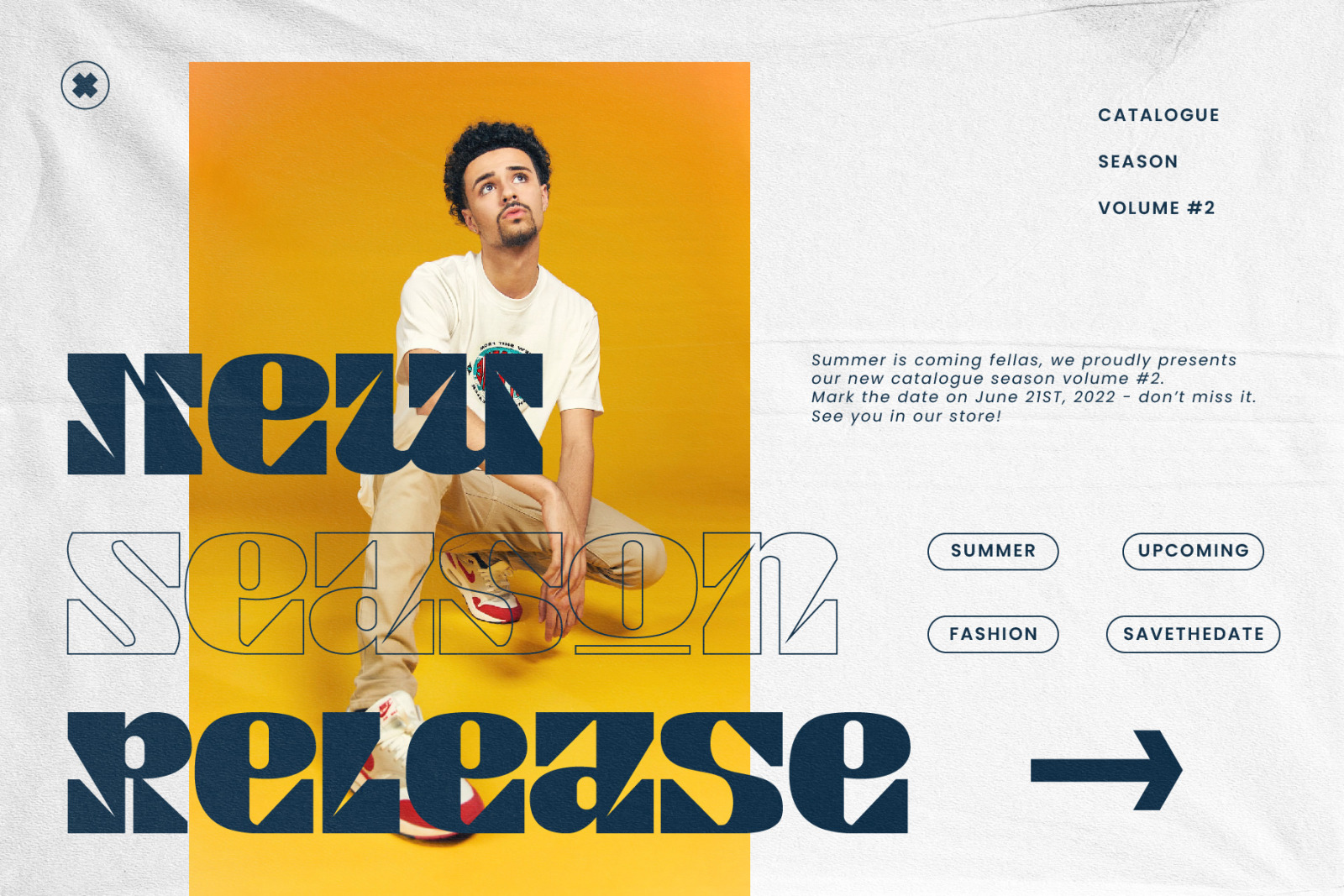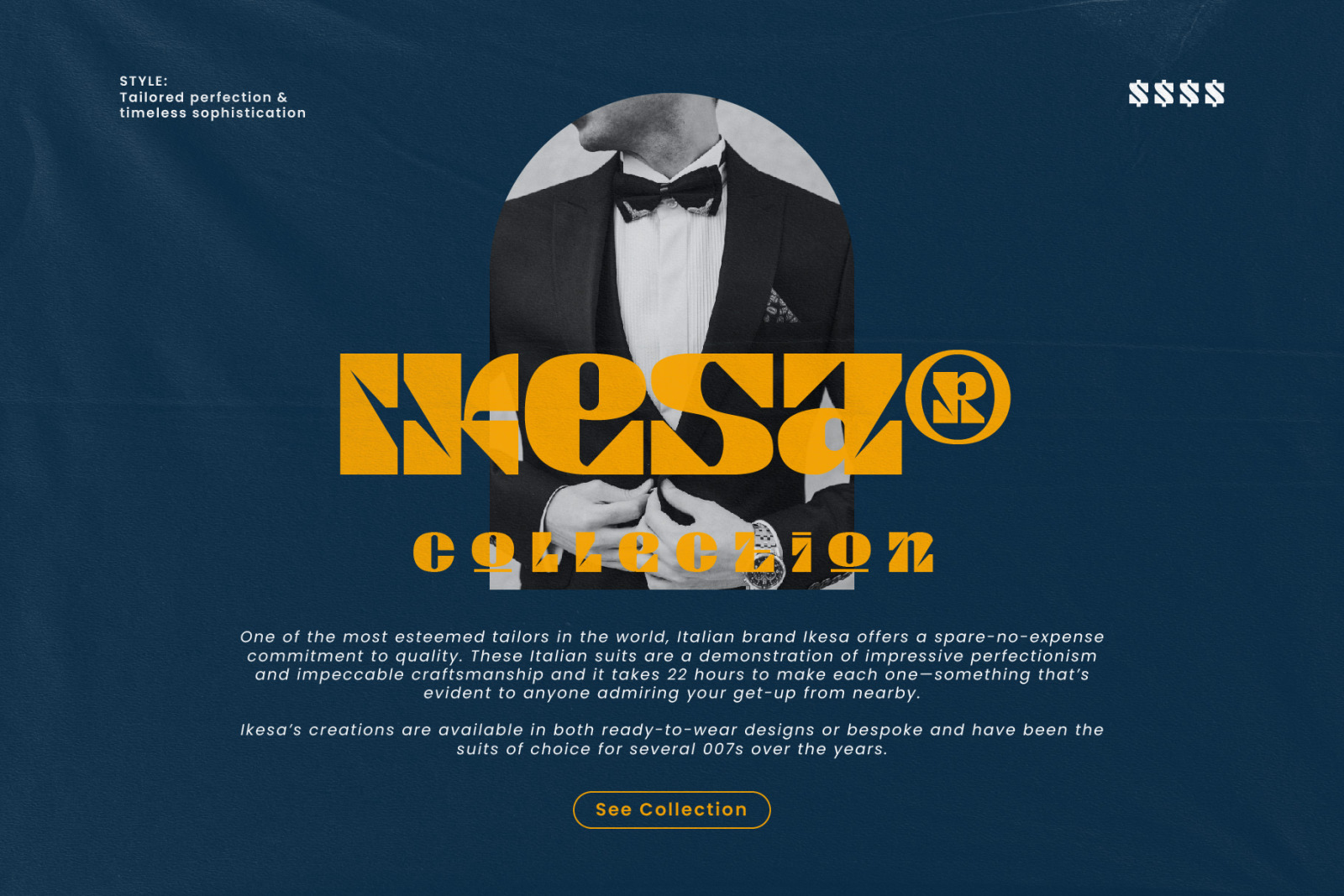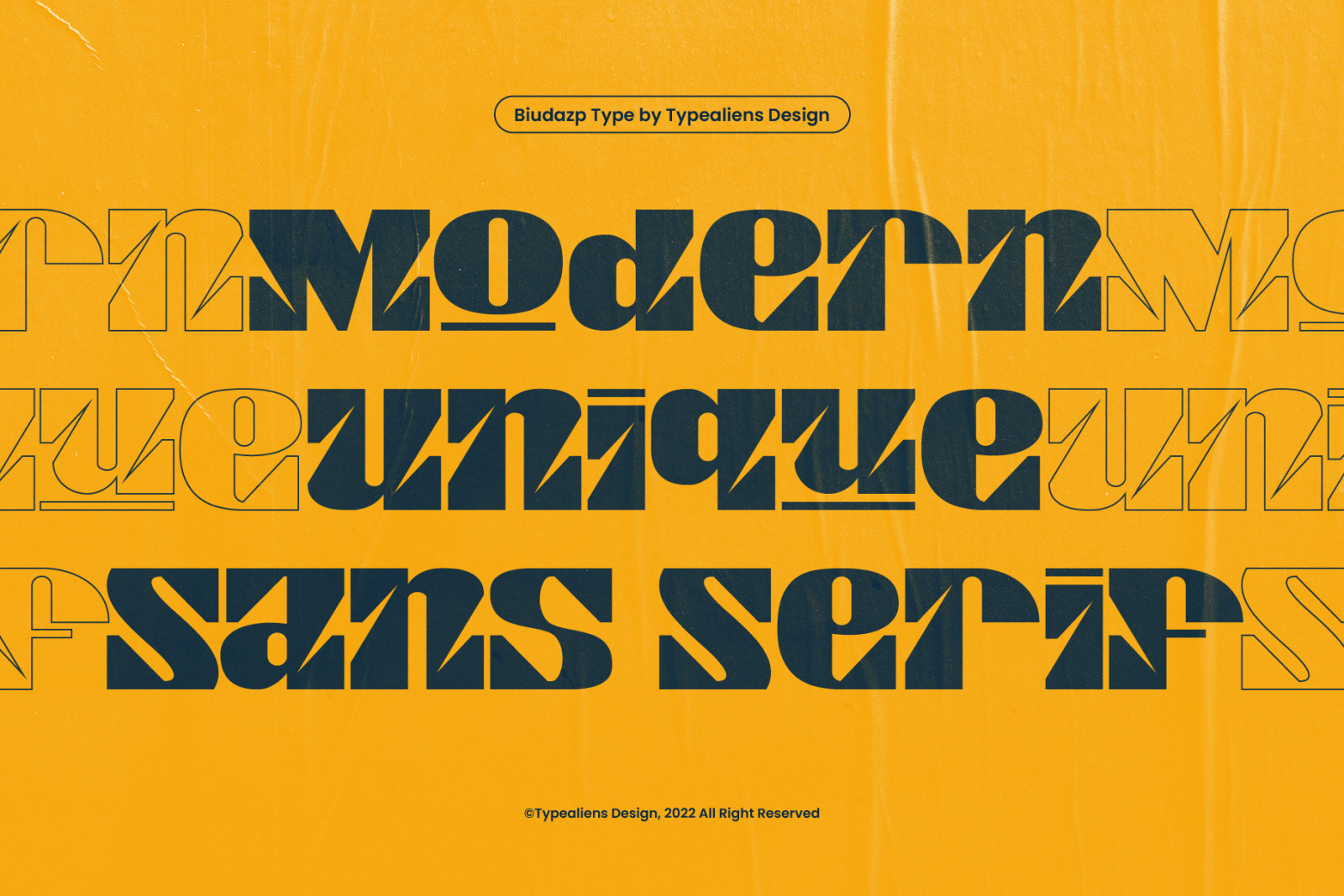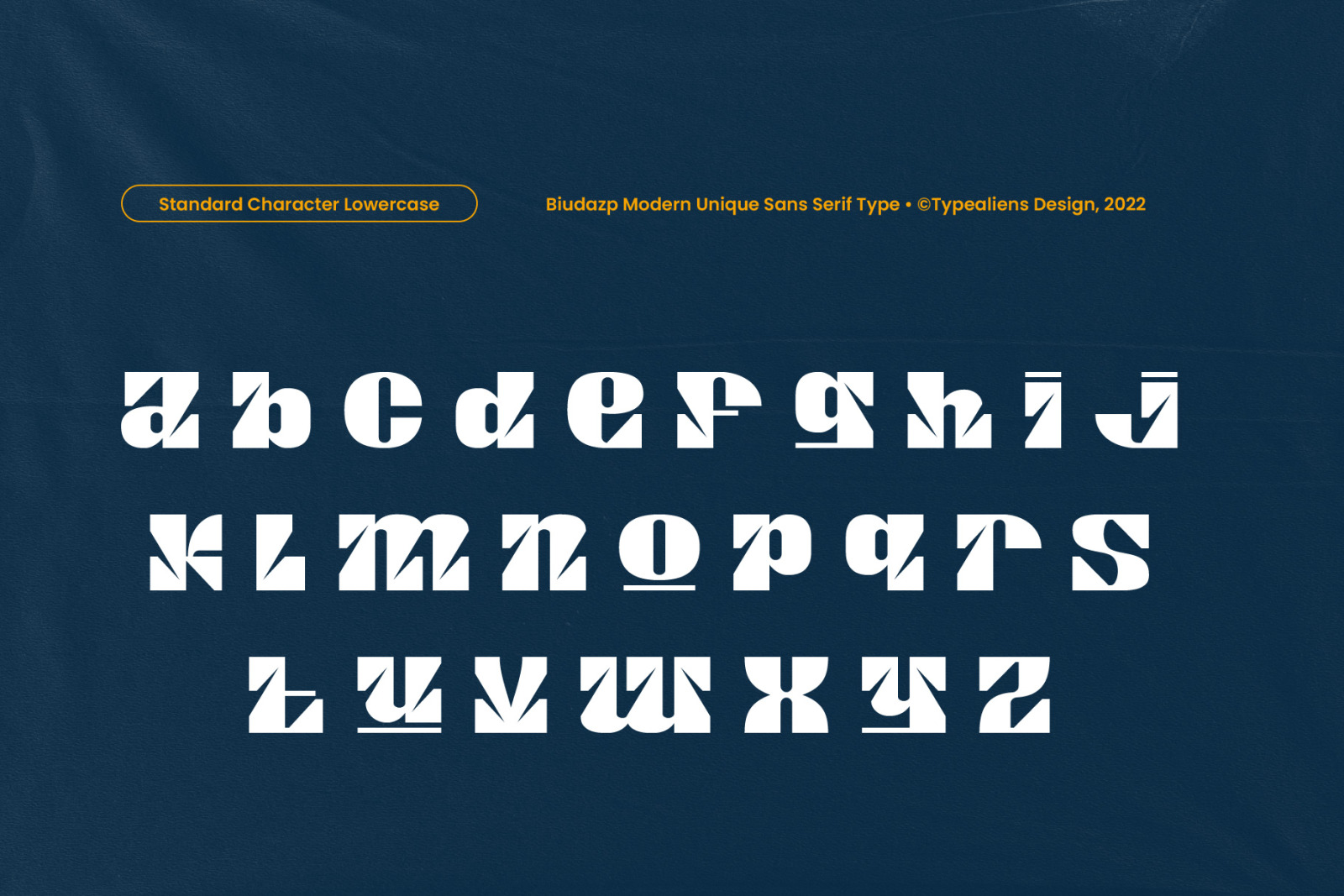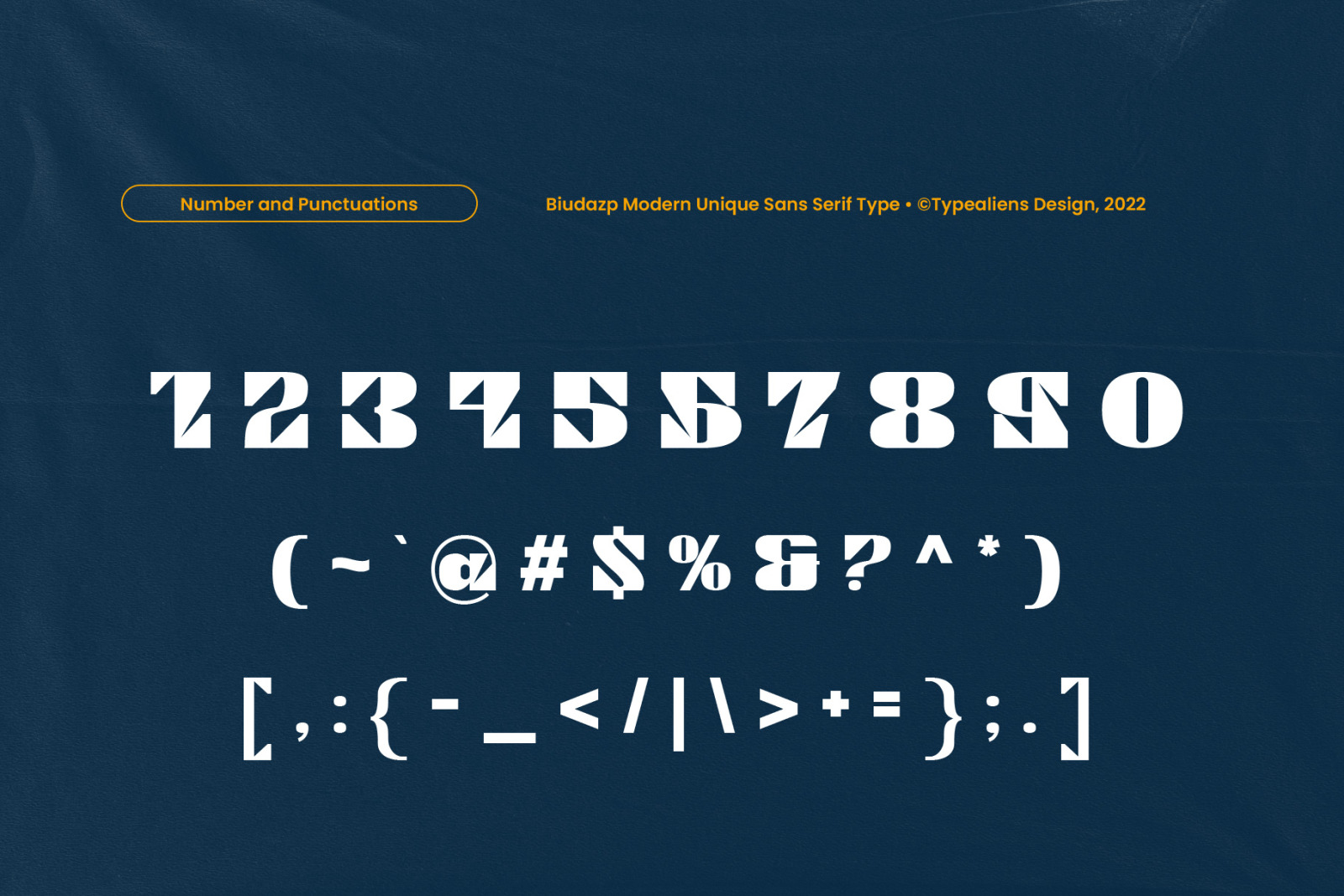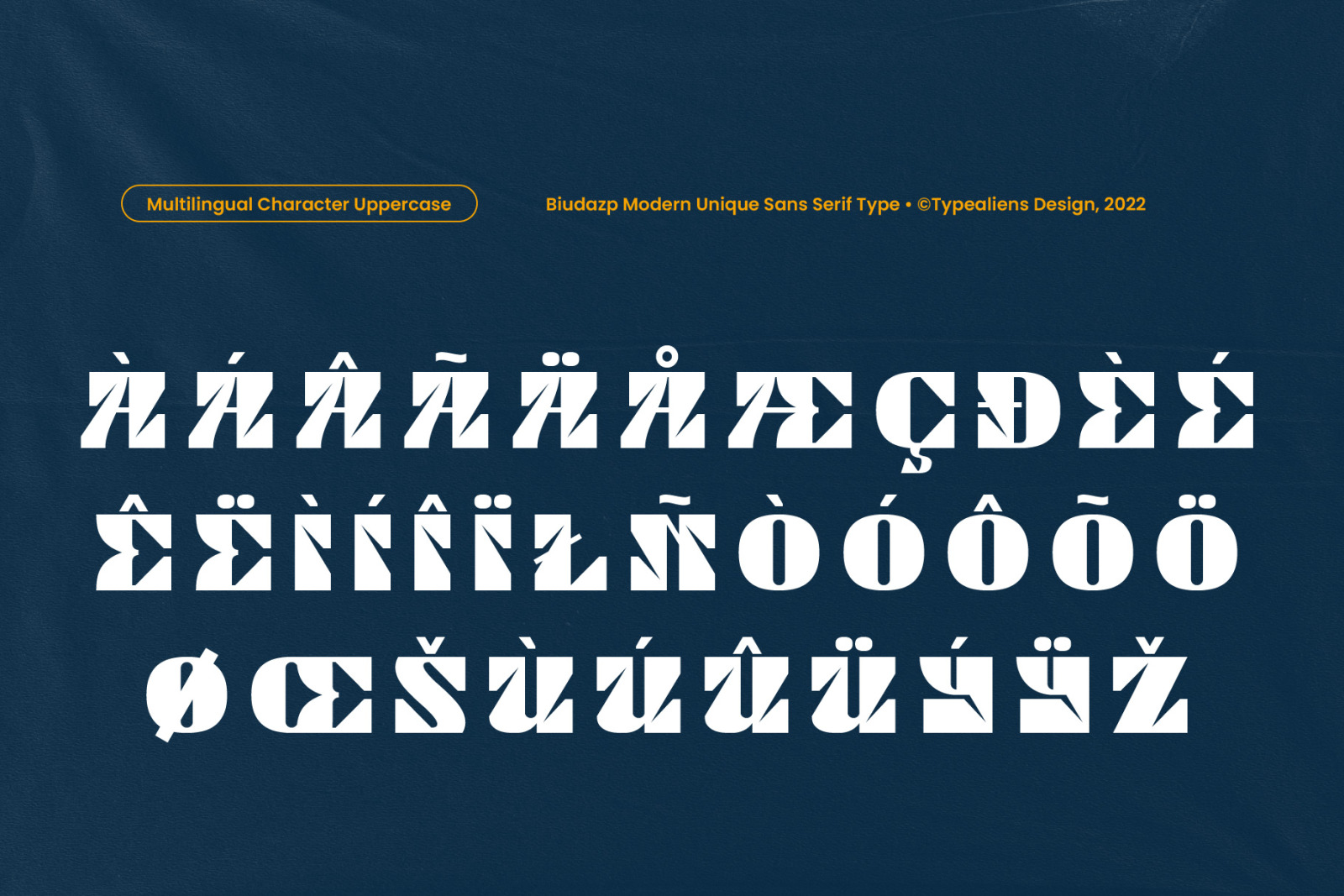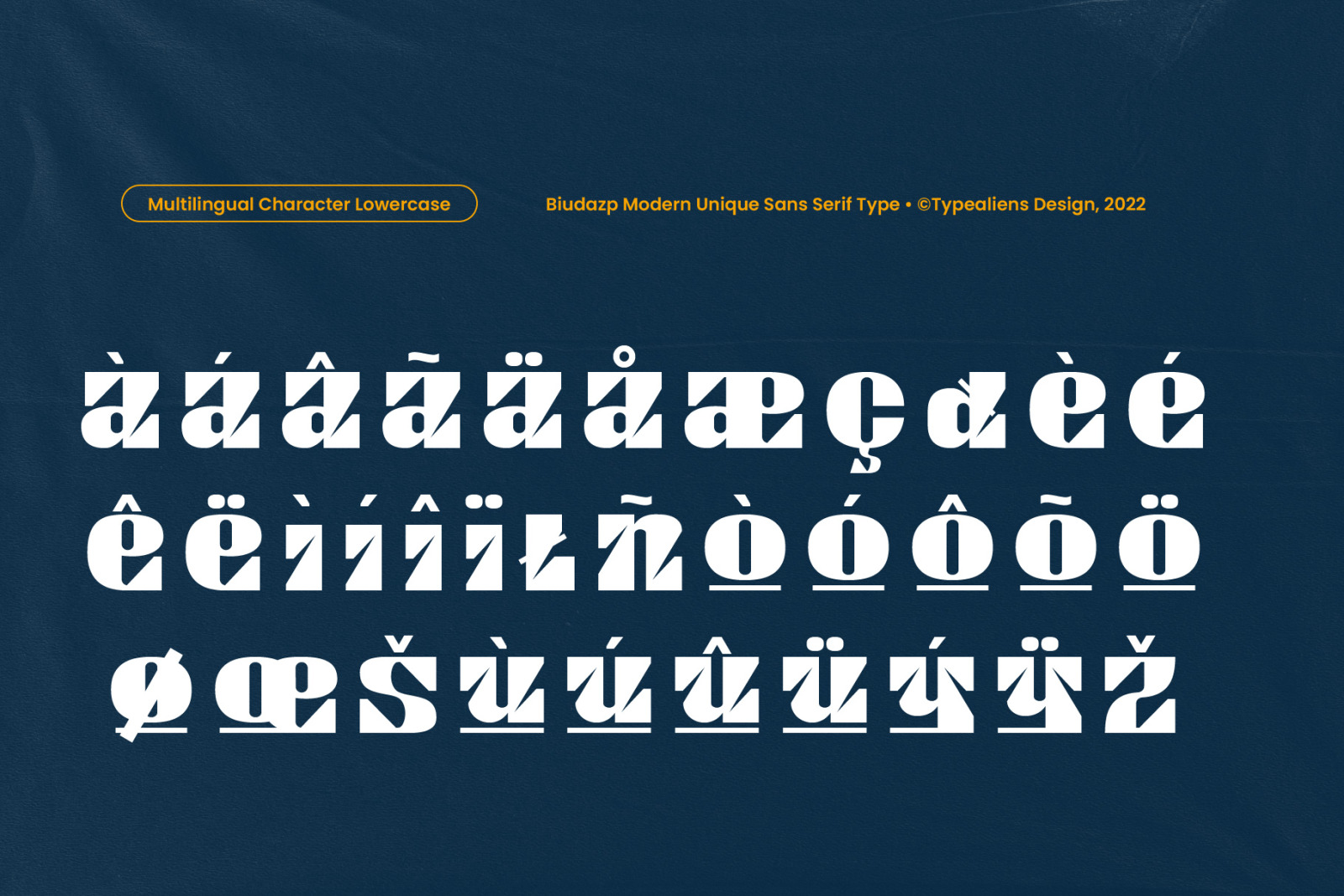
Biudazp Font
BIUDAZP is a unique font that is based on sans serif, this modern font is perfect for contemporary designs. Being the headline font on your website will be very interesting or as the headline of a modern magazine. A font consisting of uppercase and lowercase that have the same height.
Of course, this font is the main one as a display font, its uniqueness will make every design you make more interesting and different from the others